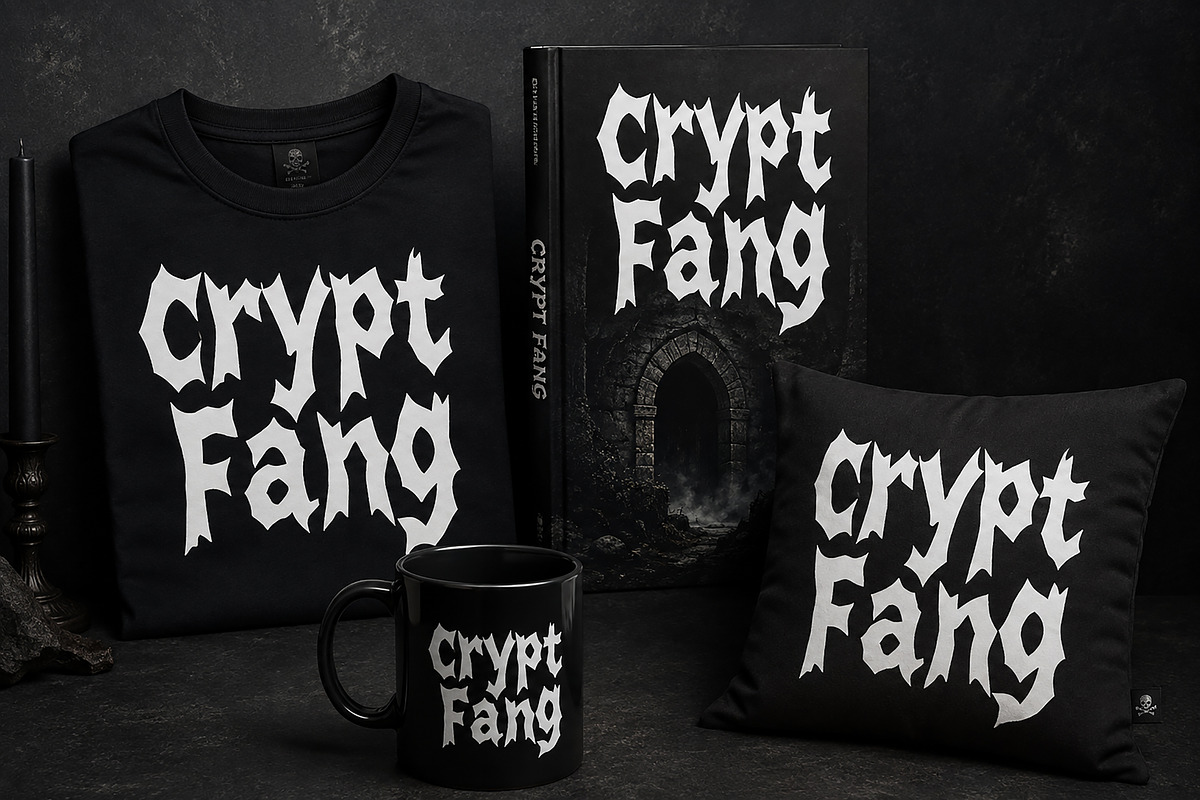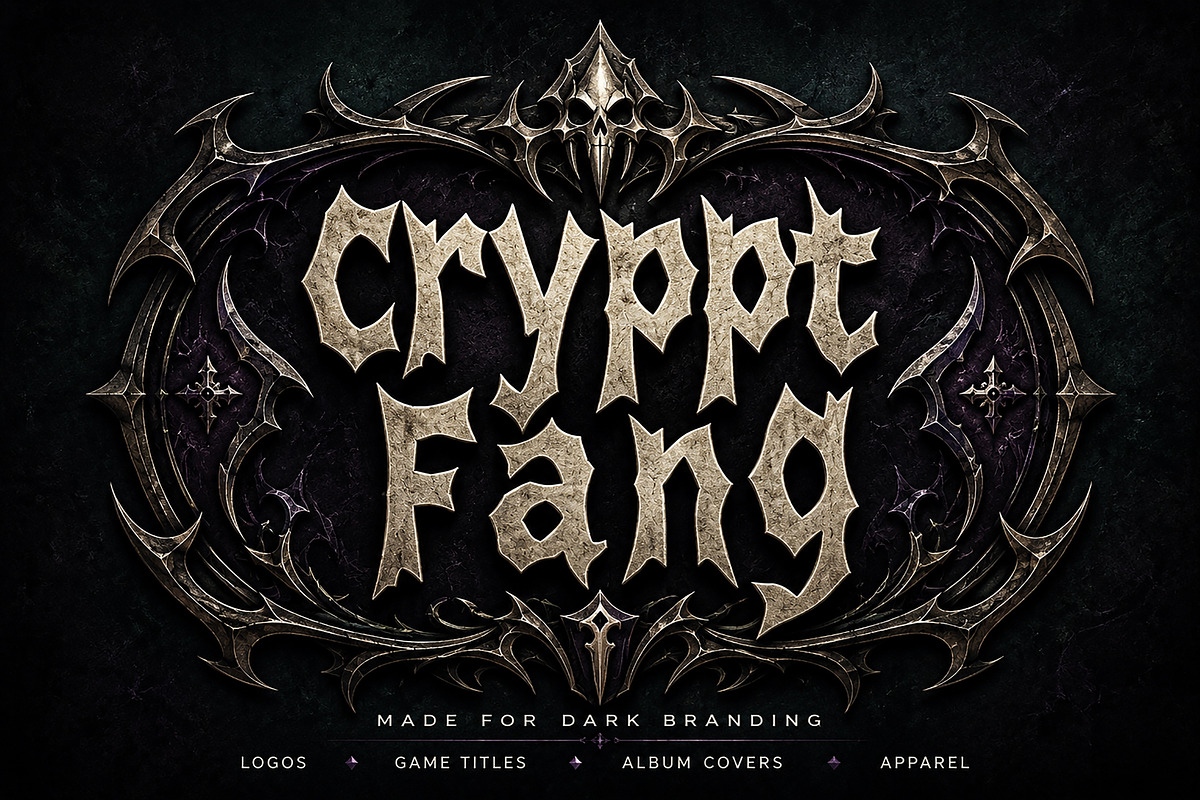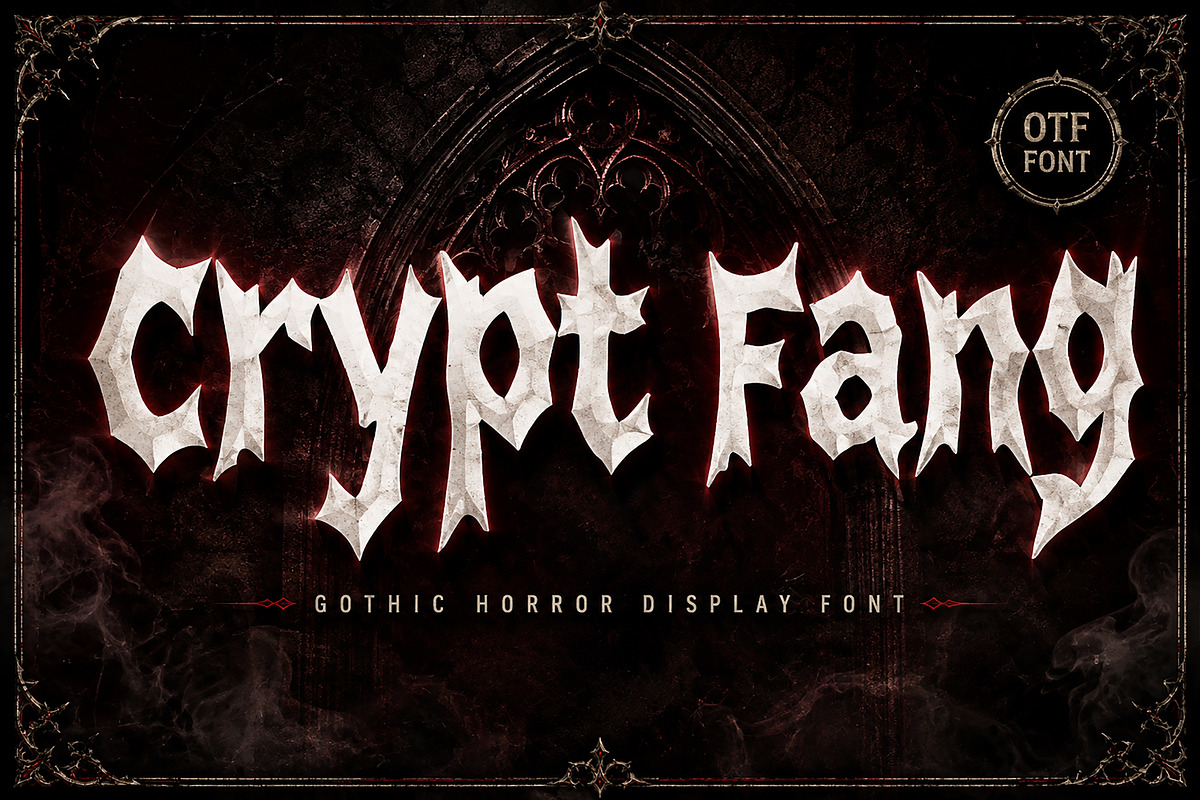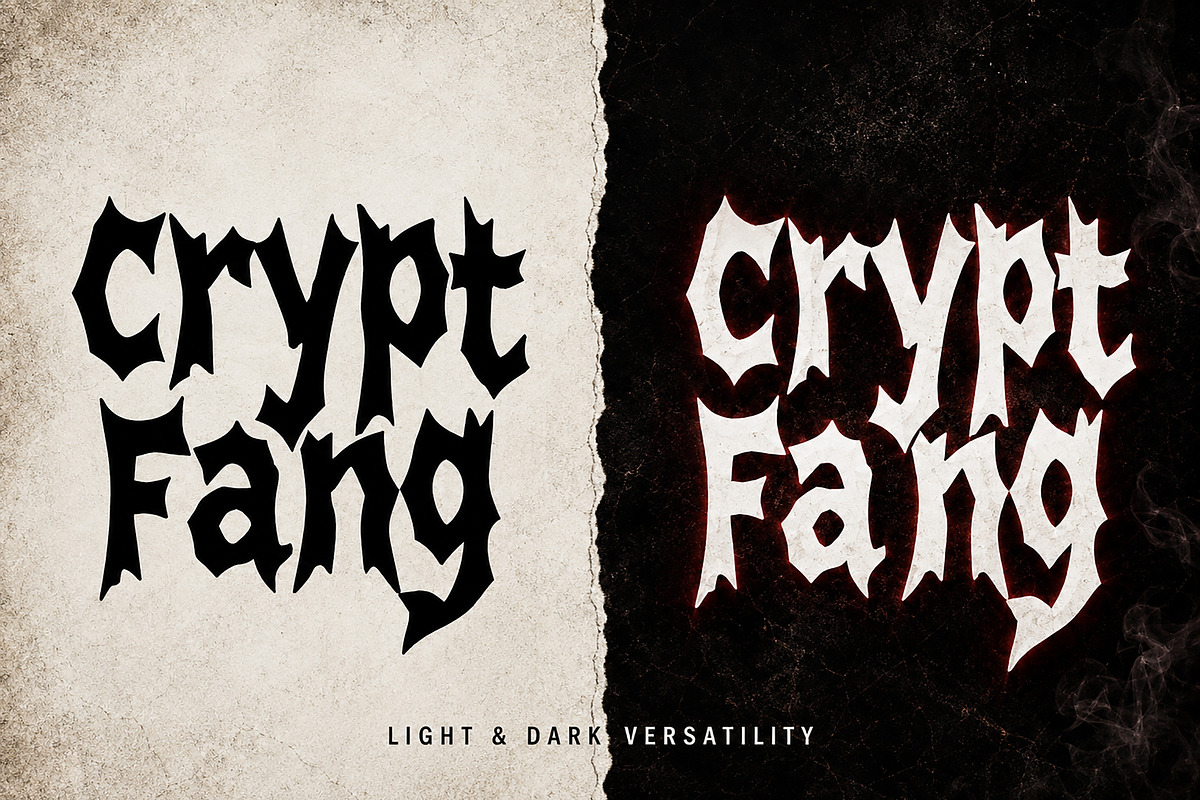
Crypt Fang
Crypt Fang – Gothic Horror Display Font
Crypt Fang is a sharp and dramatic gothic display font created for dark, mysterious, and horror-inspired designs. Its irregular pointed edges, fang-like details, and bold letterforms give every title a powerful and intimidating appearance.
This font is ideal for horror posters, Halloween designs, gaming titles, metal band artwork, tattoo branding, book covers, album covers, streetwear, apparel graphics, logos, packaging, and other dark-themed creative projects.
Whether used in black and white, metallic textures, blood-red effects, or distressed compositions, Crypt Fang helps your typography stand out with a strong gothic personality.
Horror and Halloween posters
Gothic logos and branding
Game titles and thumbnails
Metal band and album artwork
Book and movie covers
Tattoo studio branding
T-shirts and streetwear
Mugs, pillows, and merchandise
Dark fantasy projects
Unique gothic horror style
Sharp, irregular, fang-inspired letterforms
Bold and attention-grabbing display design
Suitable for both light and dark backgrounds
Add a dark, aggressive, and unforgettable gothic character to your next design with Crypt Fang.
Crypt Fang is a sharp gothic horror display font featuring dramatic, fang-inspired letterforms. Perfect for horror posters, gaming titles, metal artwork, tattoo branding, book covers, apparel, logos, and Halloween designs.